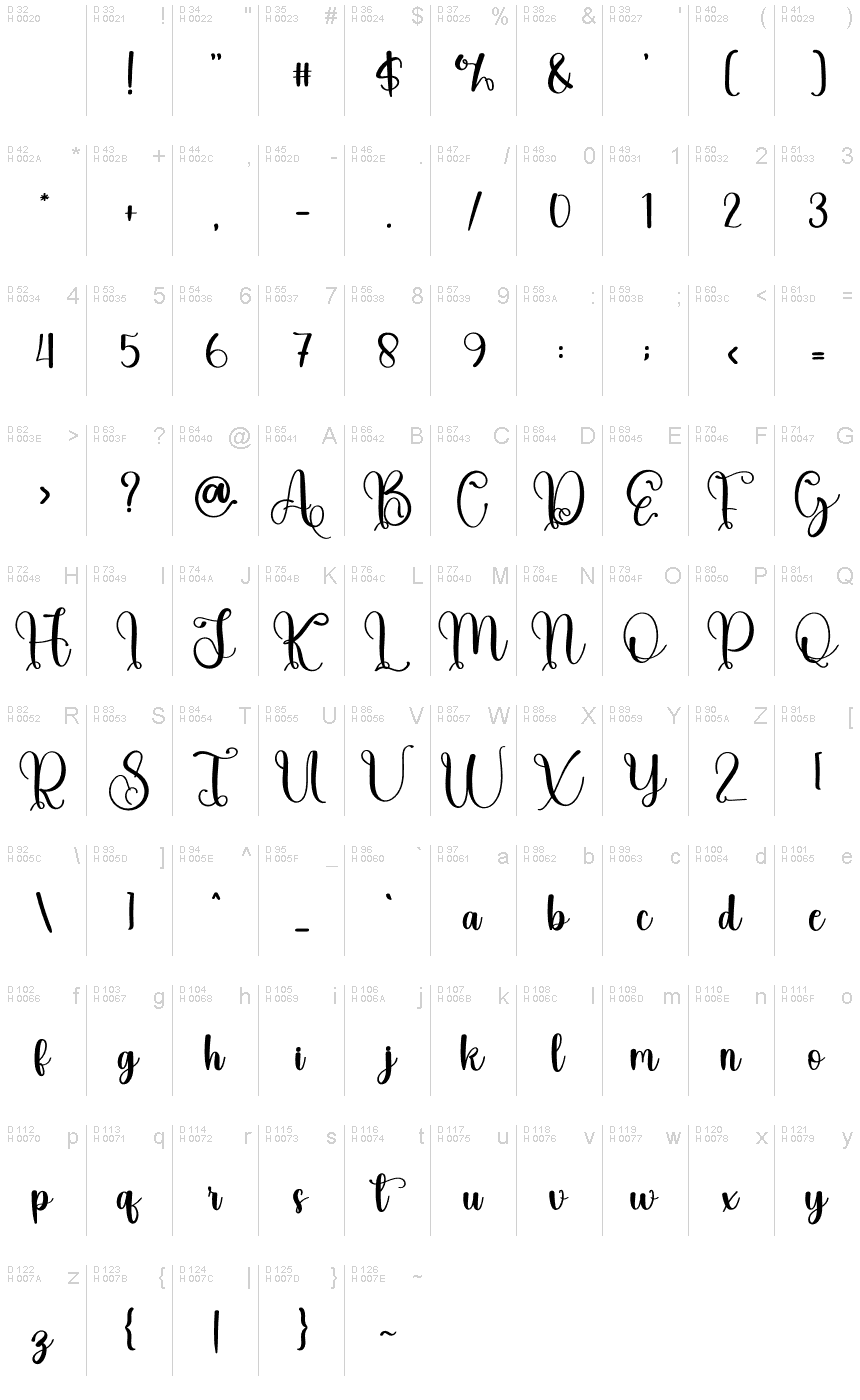
Aviration
Aviration, designed by Inermedia Studio, is an exquisite calligraphy font that exudes elegance and grace. With its semi-light weight, this font adds a touch of sophistication to any project it graces.
Its flowing strokes and intricate details make it perfect for wedding invitations, love letters, and romantic branding materials. Its versatility also allows it to shine in fashion magazines, high-end product packaging, and luxurious event posters.
Aviration's delicate yet powerful presence ensures that your designs will stand out with style and finesse.